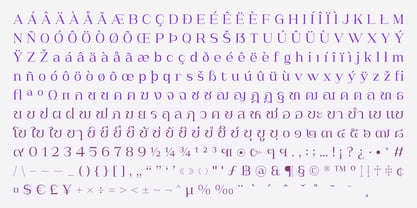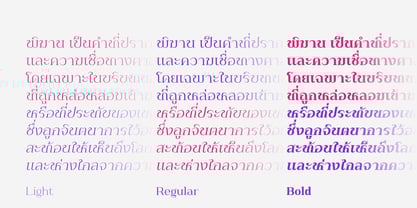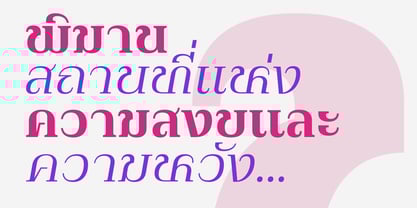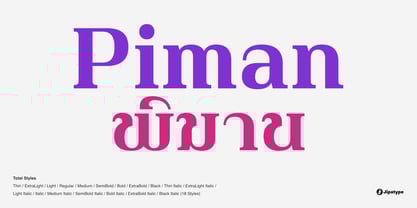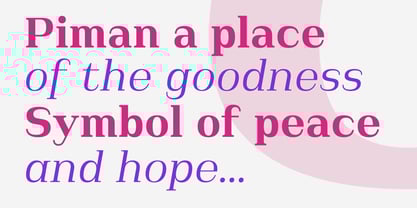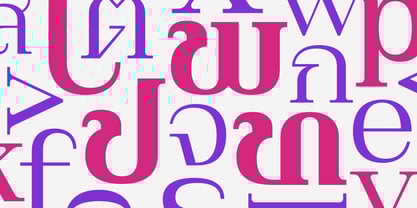
Piman
Piman is a serif typeface that beautifully blends classical elegance with modern details. Its strong structure, well-balanced contrast, and distinctive forms convey a sense of confidence and refinement. Designed to stand out, Piman is perfect for branding, editorial design, cultural projects, and any application that calls for a sophisticated and trustworthy presence. With full support for both Thai and Latin (Latin-1 Supplement) characters, Piman is a versatile choice for multilingual typography.
Piman